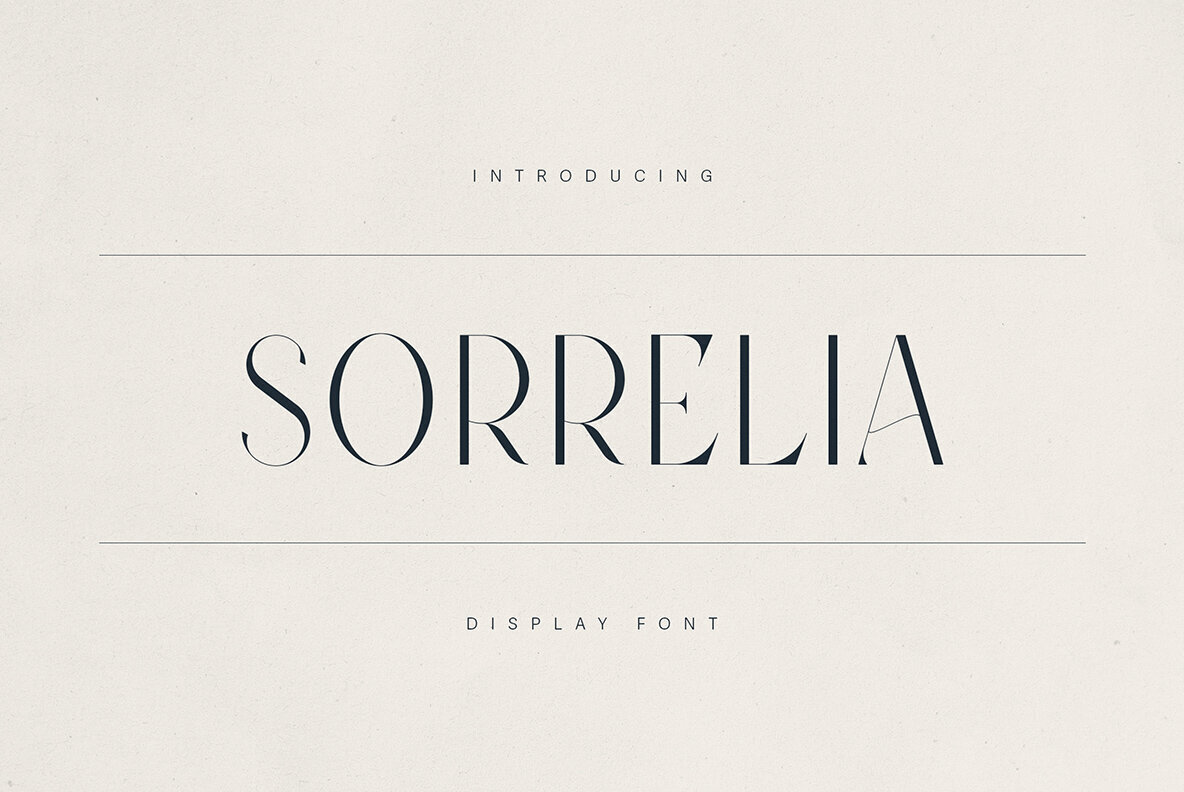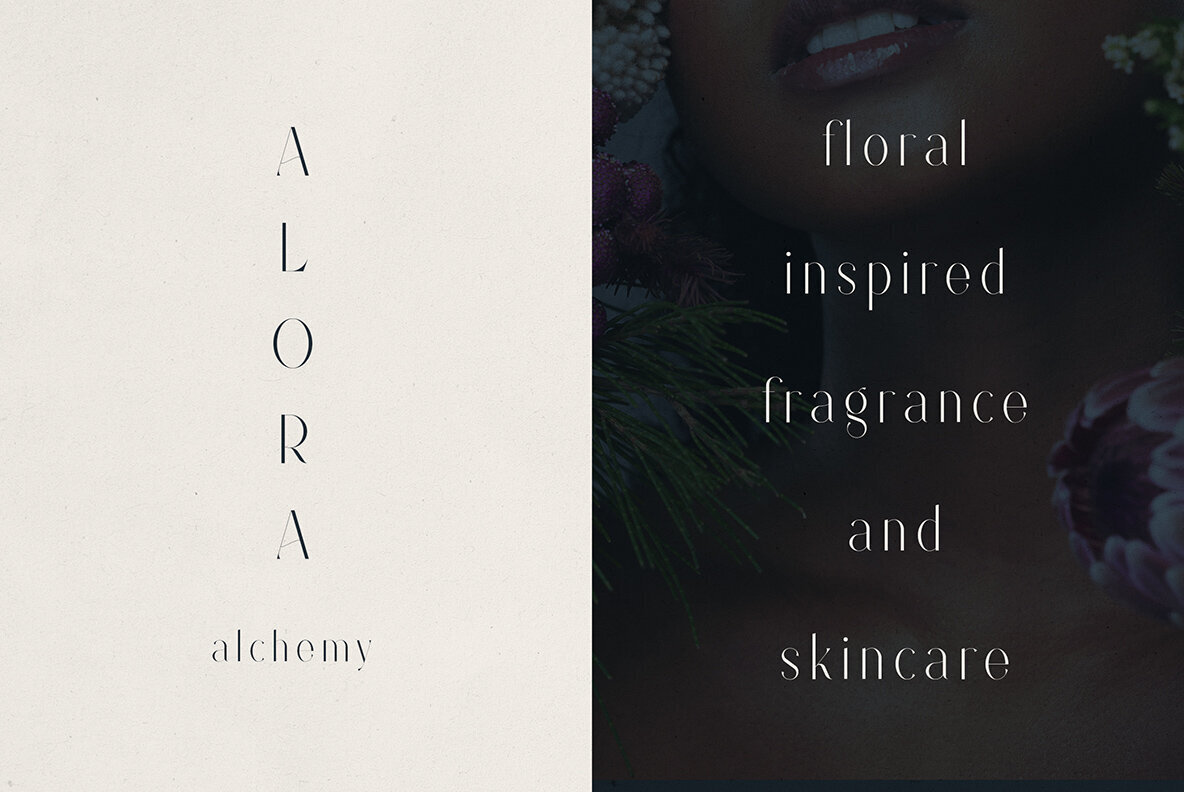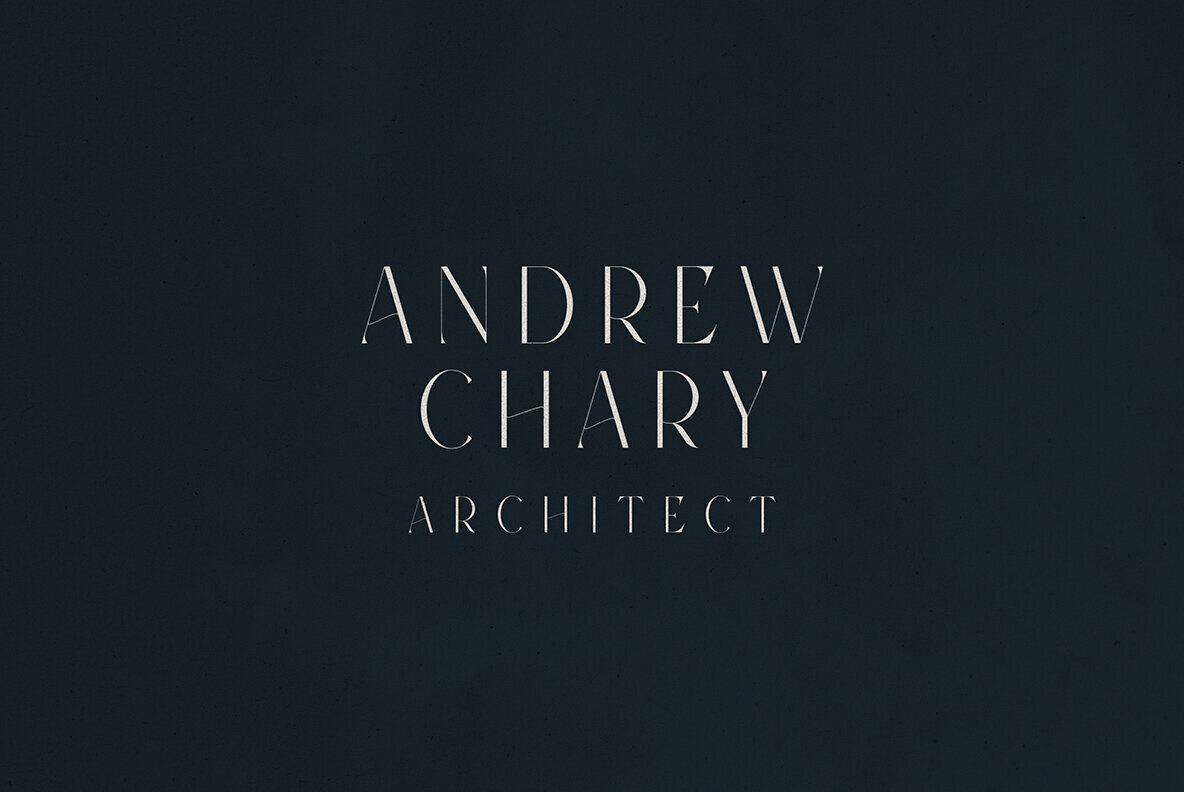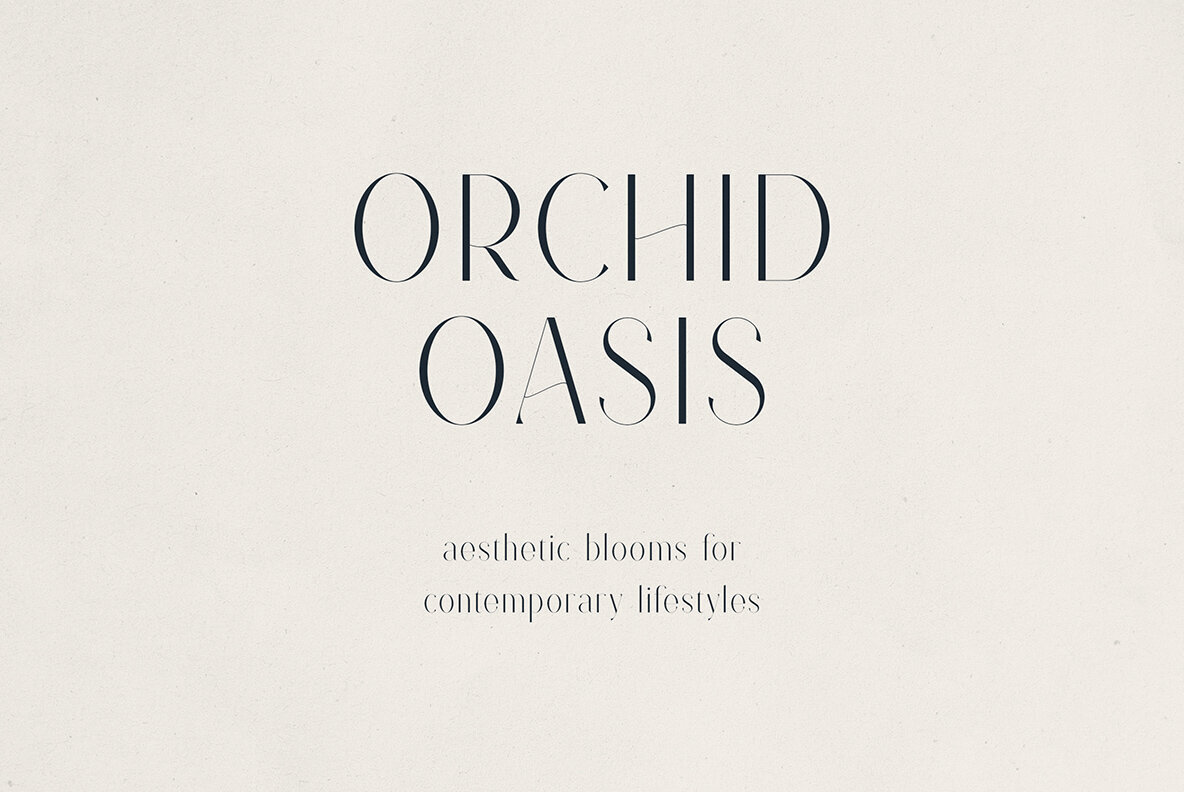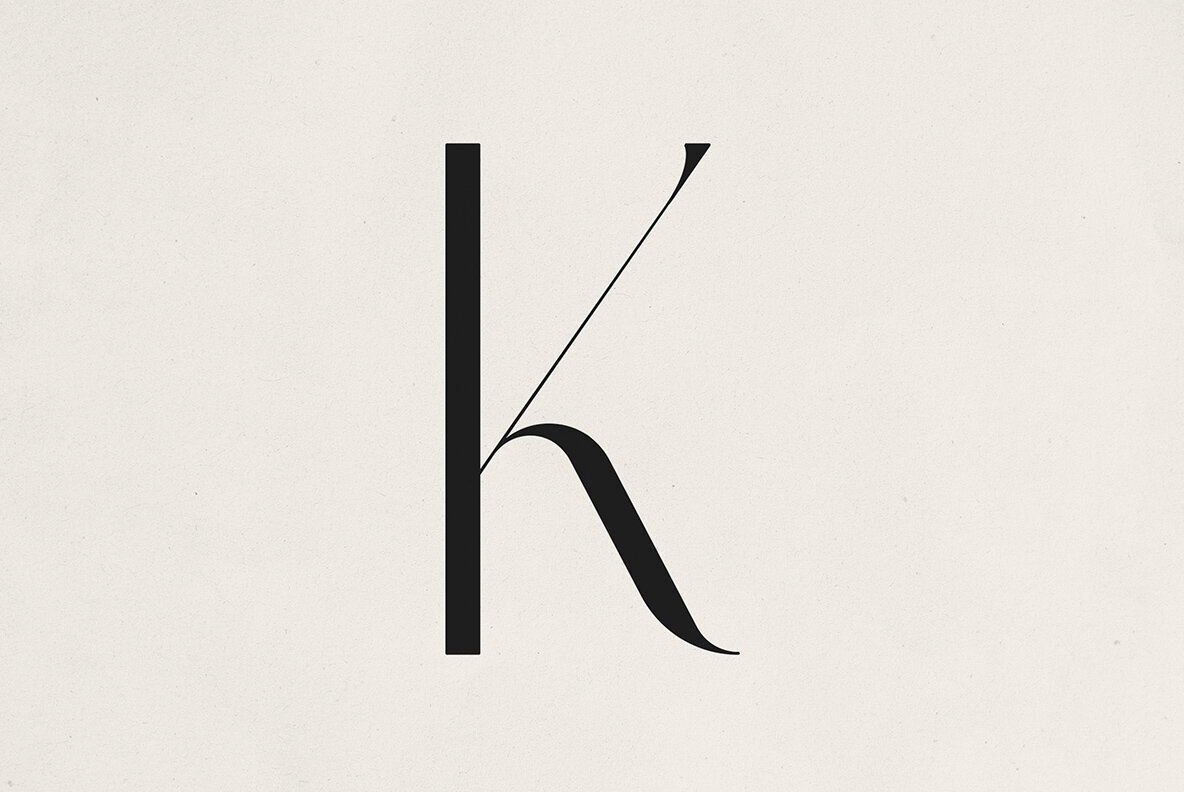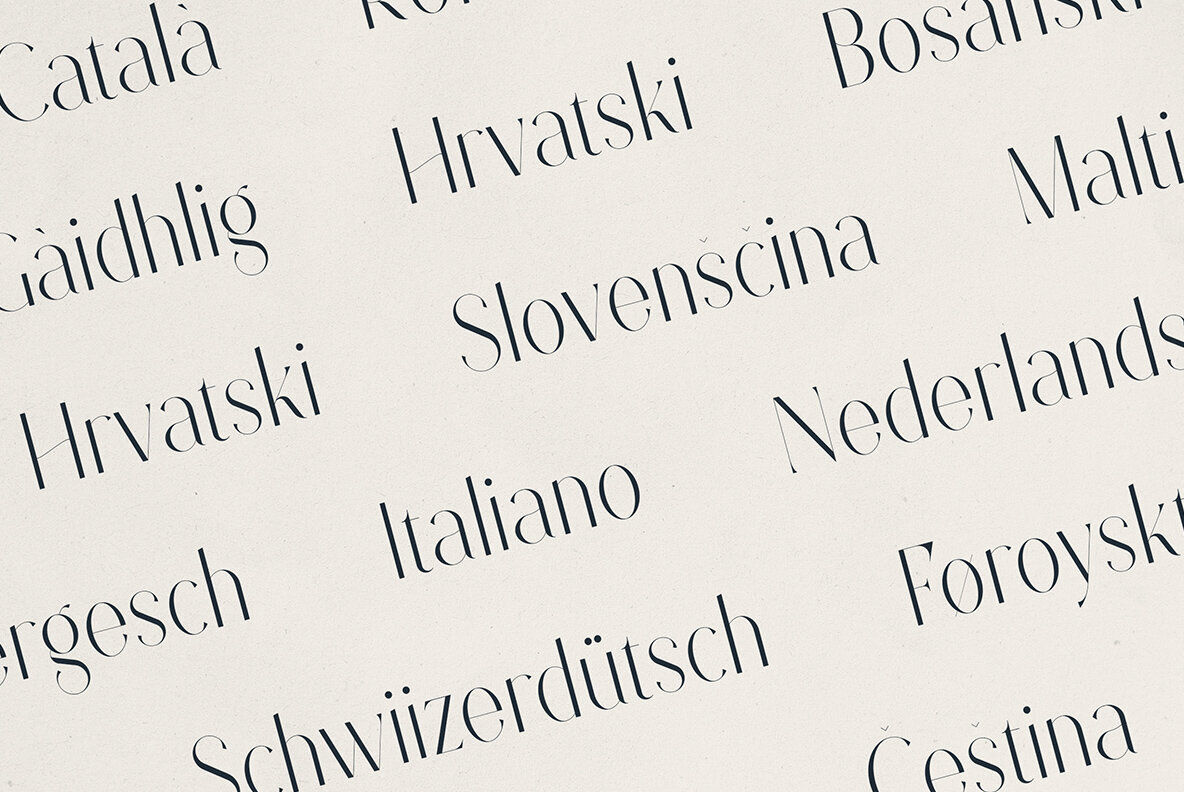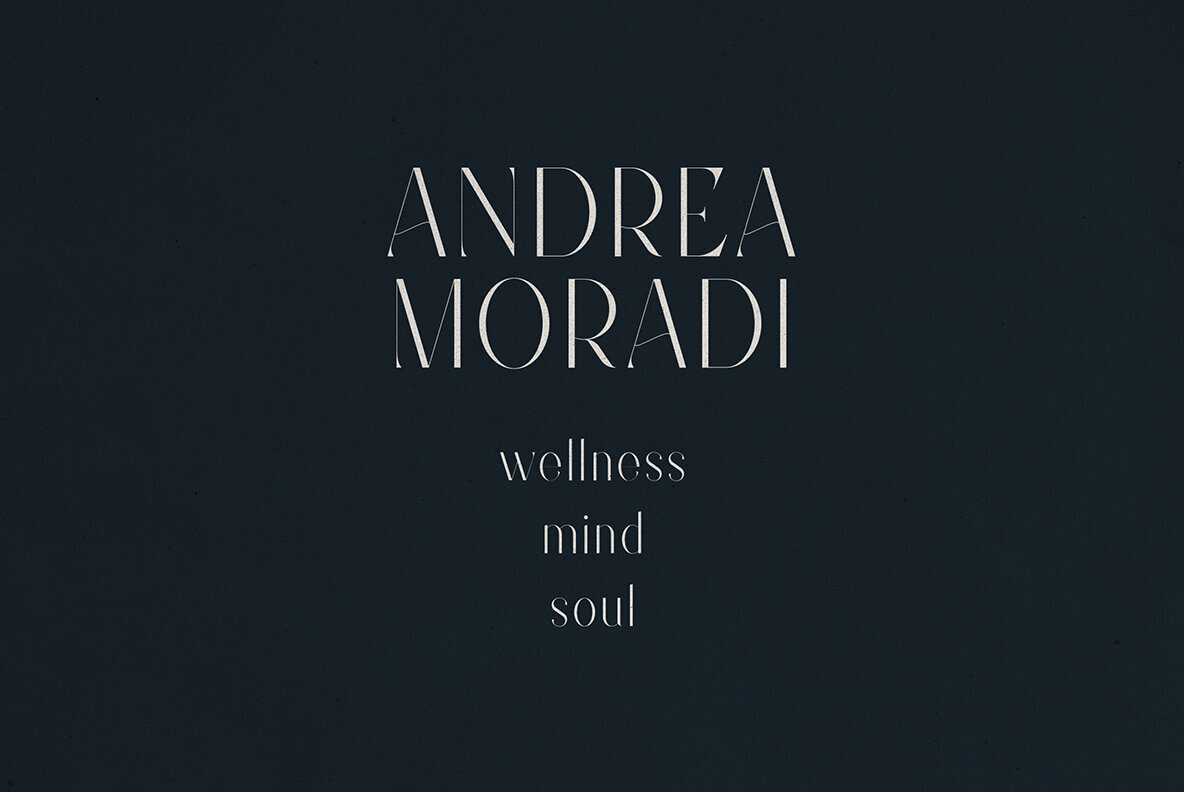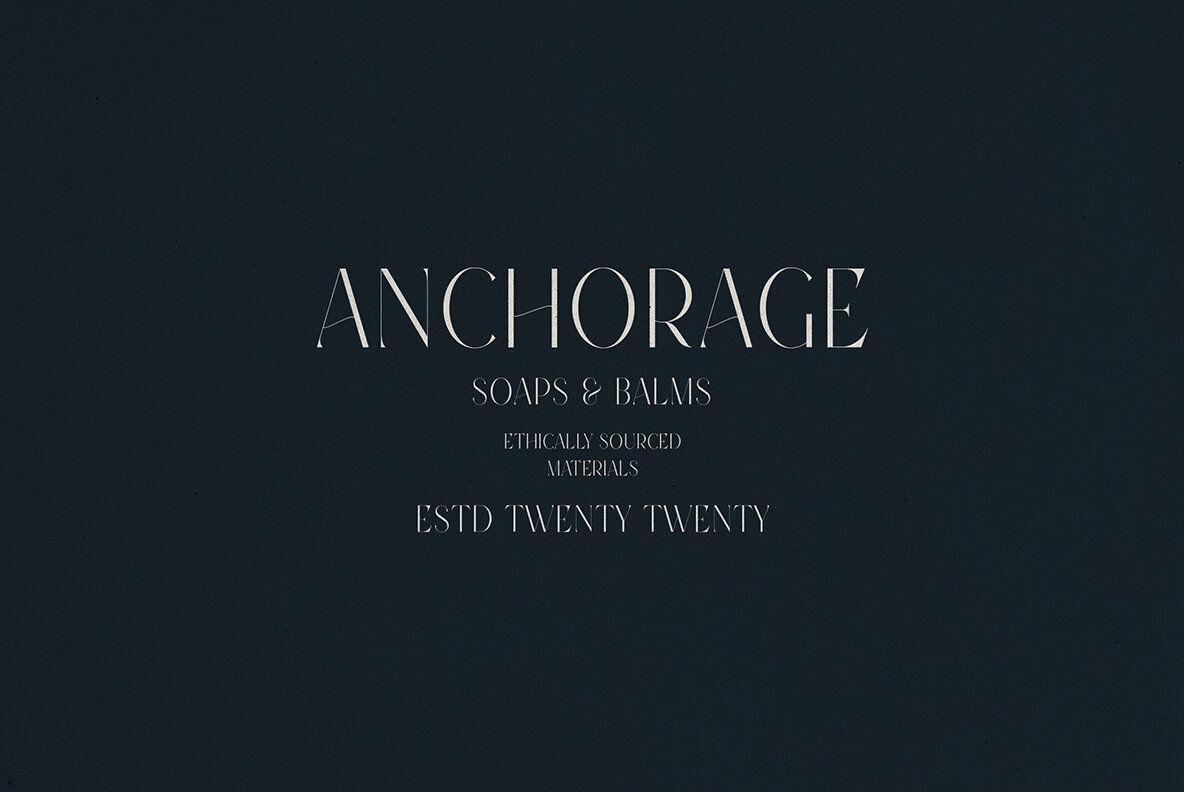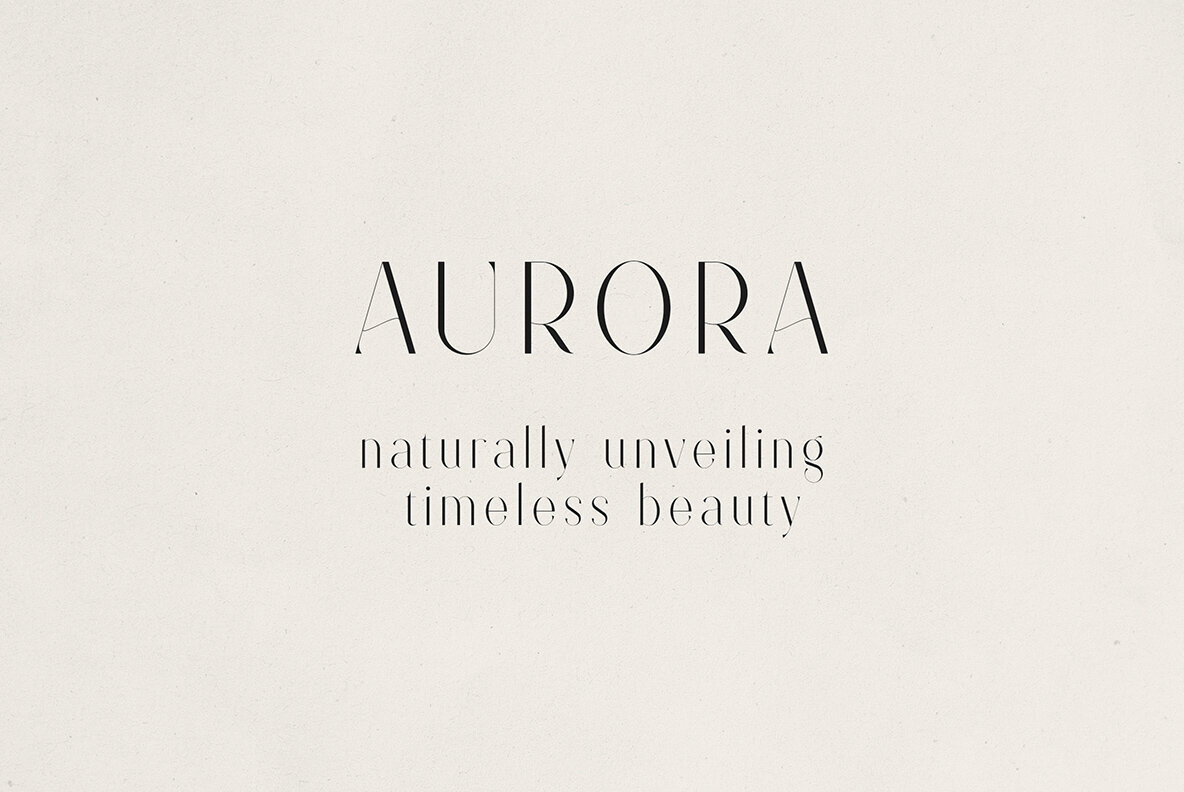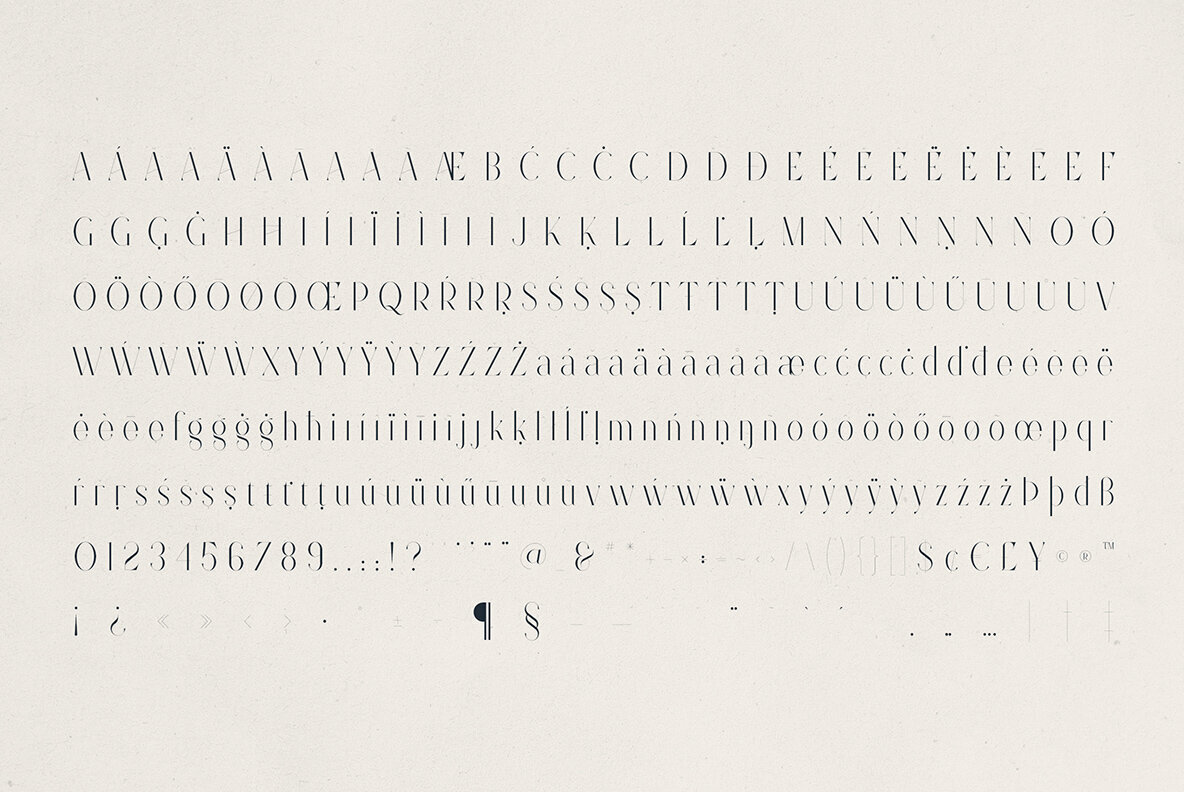
Sorrelia Font
Sorrelia Regular
Discover Sorrelia, an elegant serif display font designed for refined visual storytelling. The luxurious, high-contrast strokes, along with elongated letterforms and artistic curves, make Sorrelia a perfect choice for upscale branding, beauty packaging, editorial design, and premium fashion campaigns. Its sharp, sculpted serifs with unique character details enhance the sophistication of your headlines, logos, packaging, and magazine titles, providing a timeless touch to any project. Sorrelia offers unparalleled versatility with multilingual support across more than 80 Latin-based languages, ensuring your message reaches a diverse audience with clarity and style. Its feminine yet bold design, with delicate curves and dramatic vertical stress, strikes a perfect balance between minimalism and ornamentation. This makes it ideal for luxury branding, fashion editorials, wellness, lifestyle businesses, high-end architecture, interior design studios, as well as fragrance, skincare, and floral brands.Sorrelia: Luxurious High-Contrast Display Serif